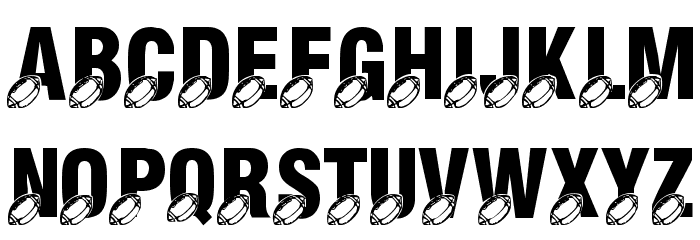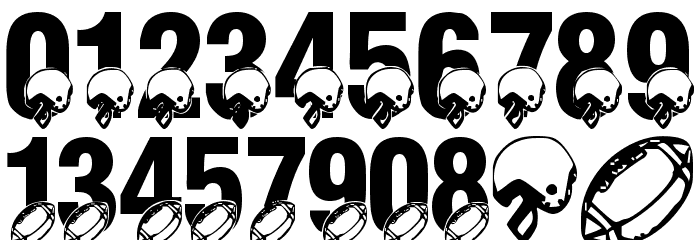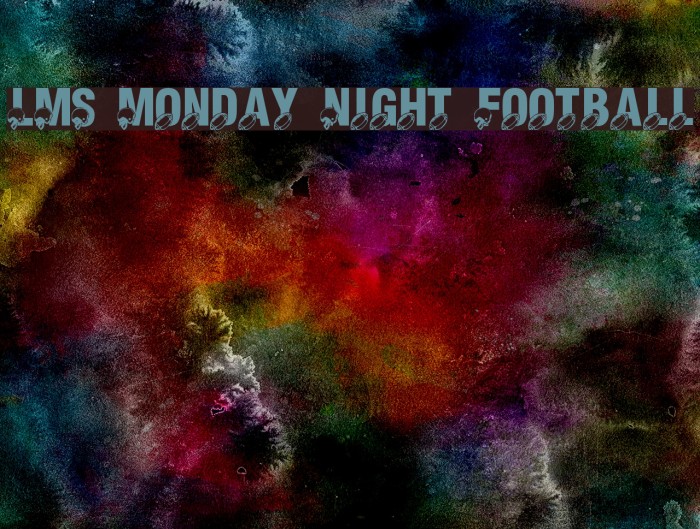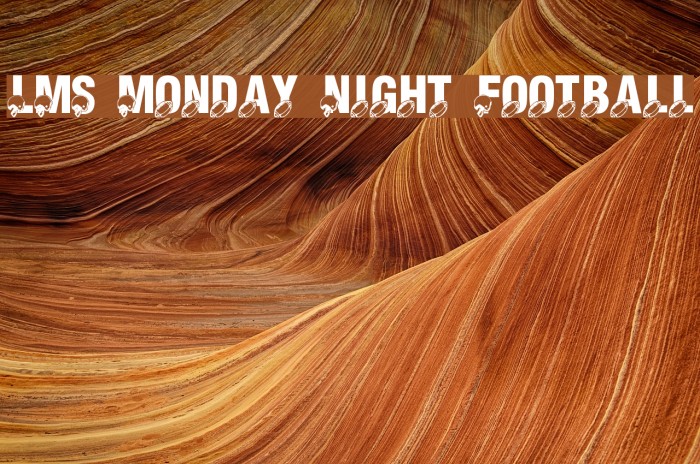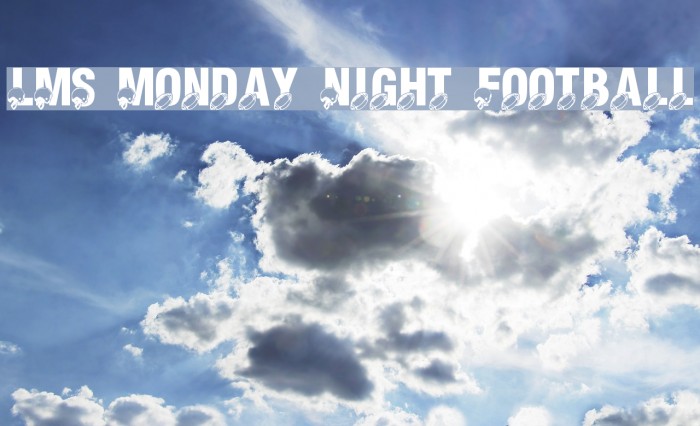
LMS Monday Night Football Font
This bold and dynamic font features a unique design where each character is integrated with football-themed elements, such as helmets and footballs. The uppercase letters are solid and robust, conveying a sense of strength and energy, perfect for sports-related projects. The numbers also carry the same thematic elements, making them ideal for scoreboards or sports event promotions. The font's playful yet strong appearance makes it stand out, capturing the excitement and intensity of football.
A bold, football-themed font with integrated sports elements.
- Proposed Projects: Ideal for sports event posters, team merchandise, game day flyers, and any football-related branding.